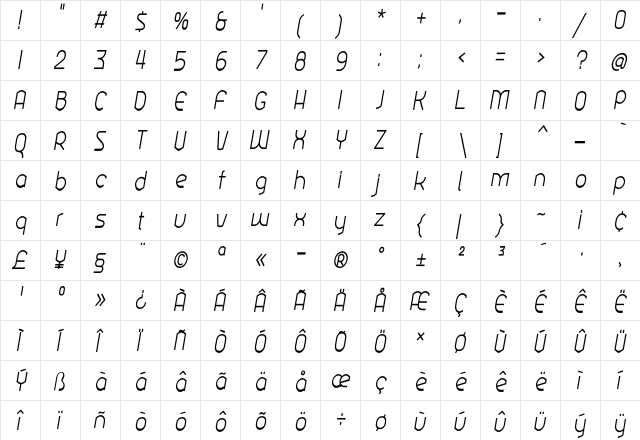
Ekela Light Condensed Italic Font Preview
| Style | Light Condensed Italic |
| Foundry | Audry Kitoko Makelele |
| Designer | Audry Kitoko Makelele |
Design Context for Ekela Typeface
Ekela takes a measured approach to typography — its balanced proportions and neutral character make it a reliable workhorse for both digital and print work. The dynamic lean of this cut emphasises speed and emphasis in any layout. Its slender proportions lend an understated elegance to any composition. The condensed width makes it efficient for tight spaces without sacrificing legibility.